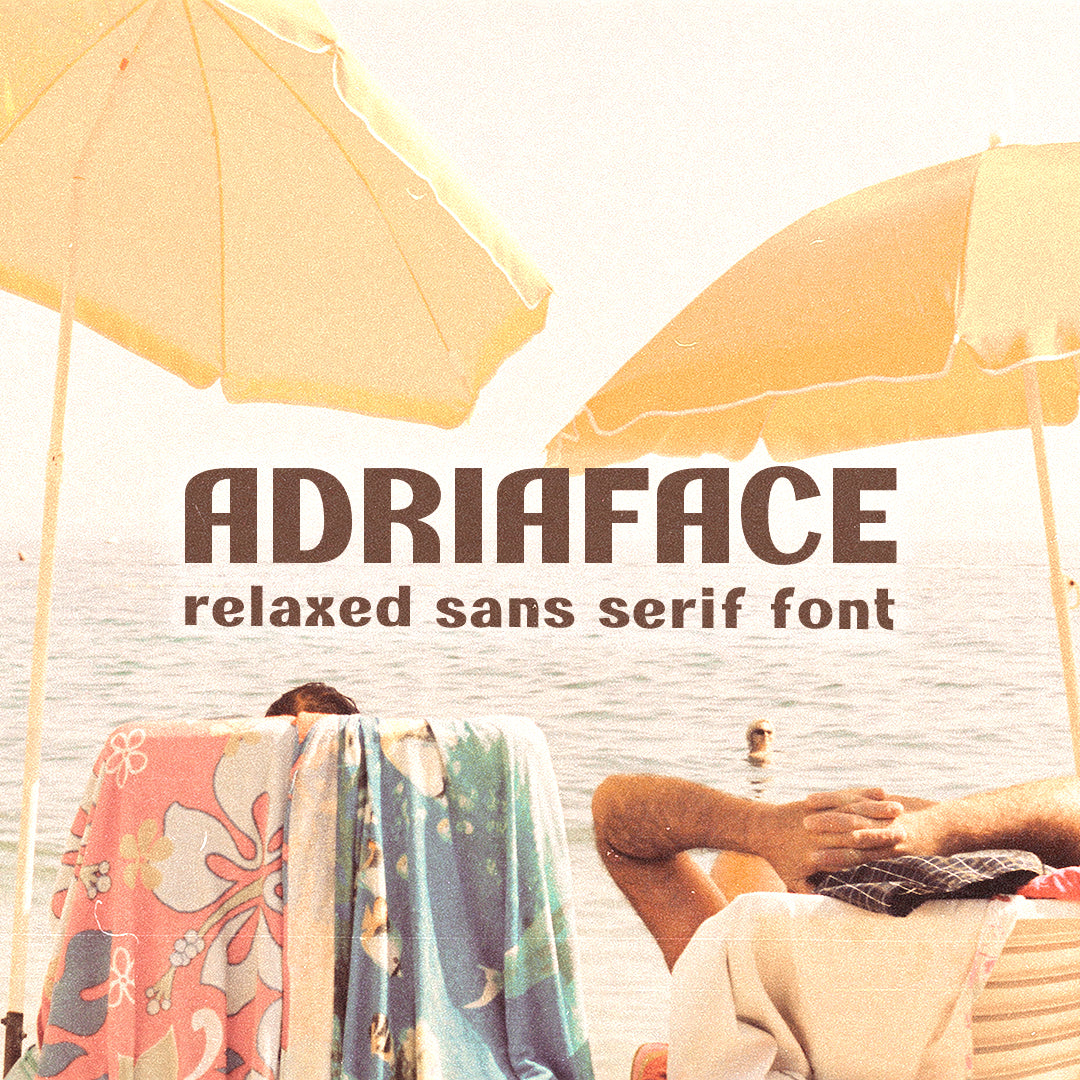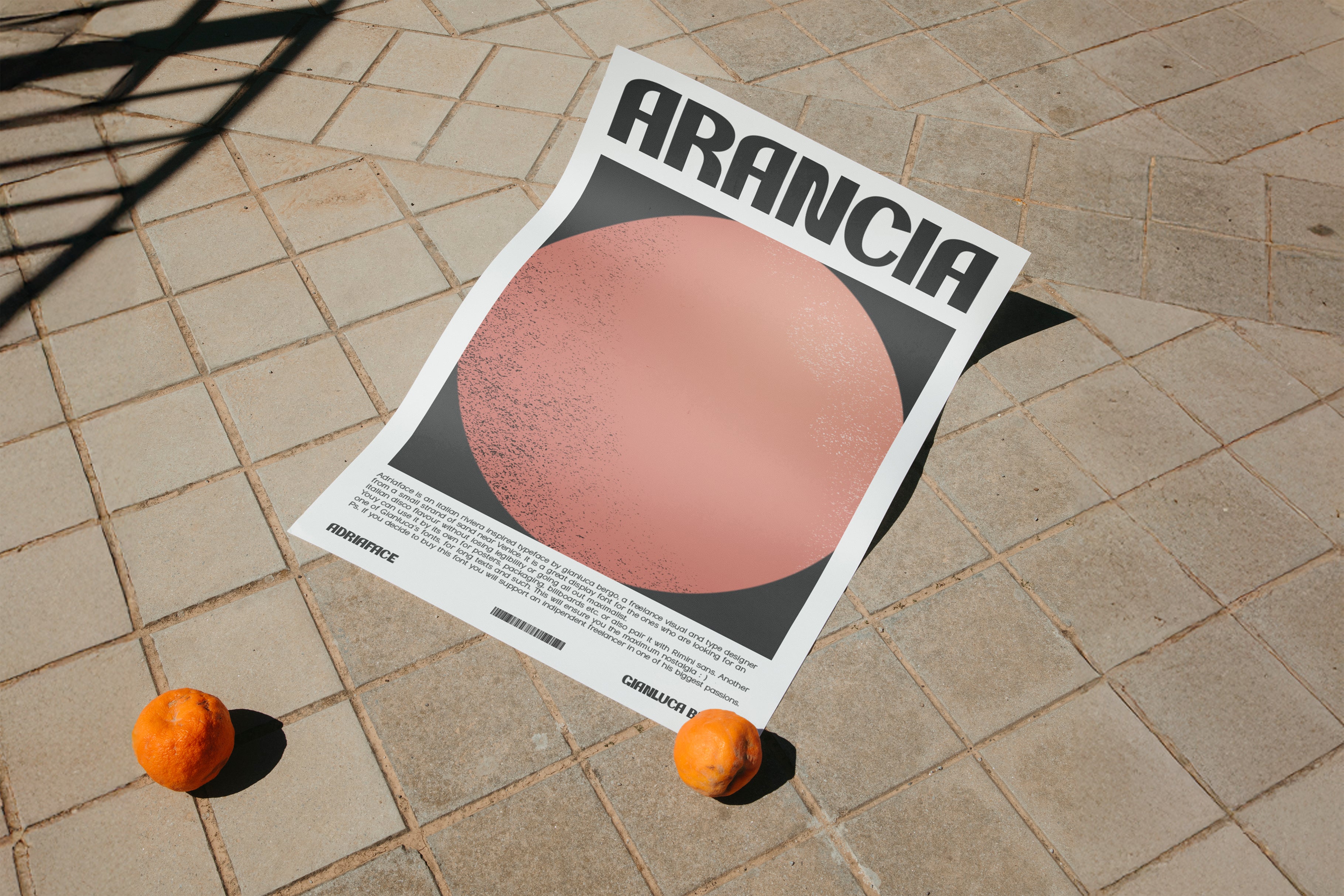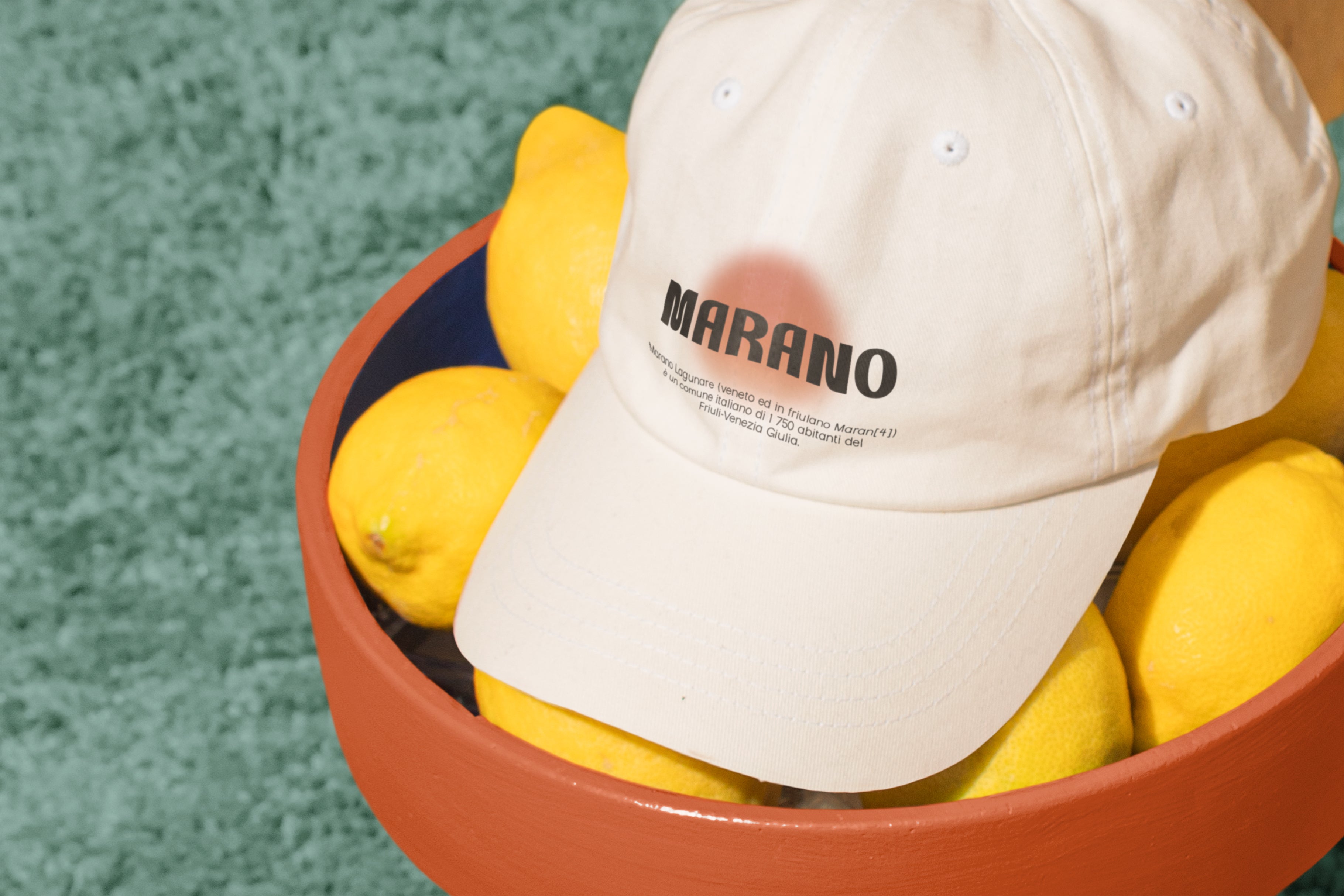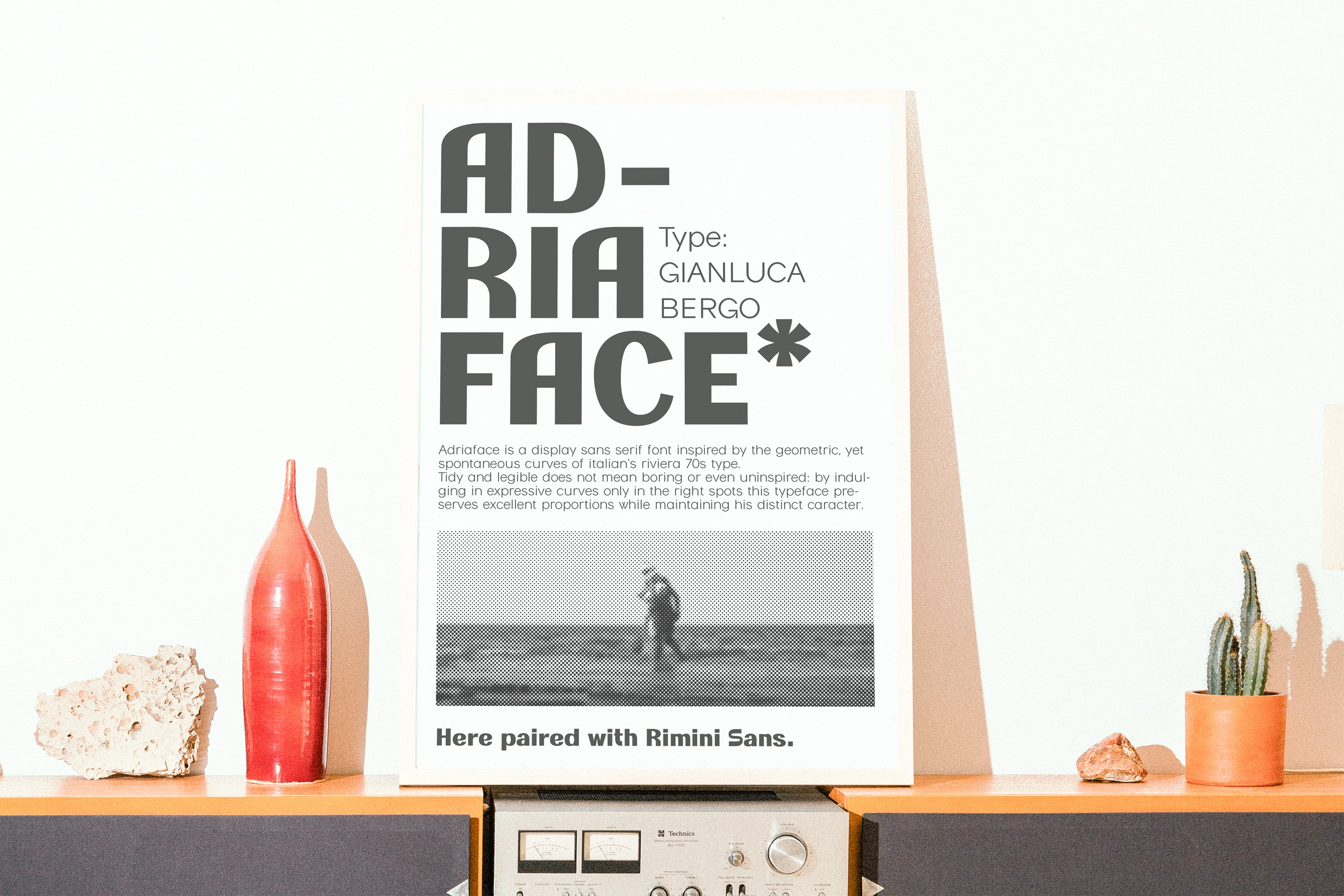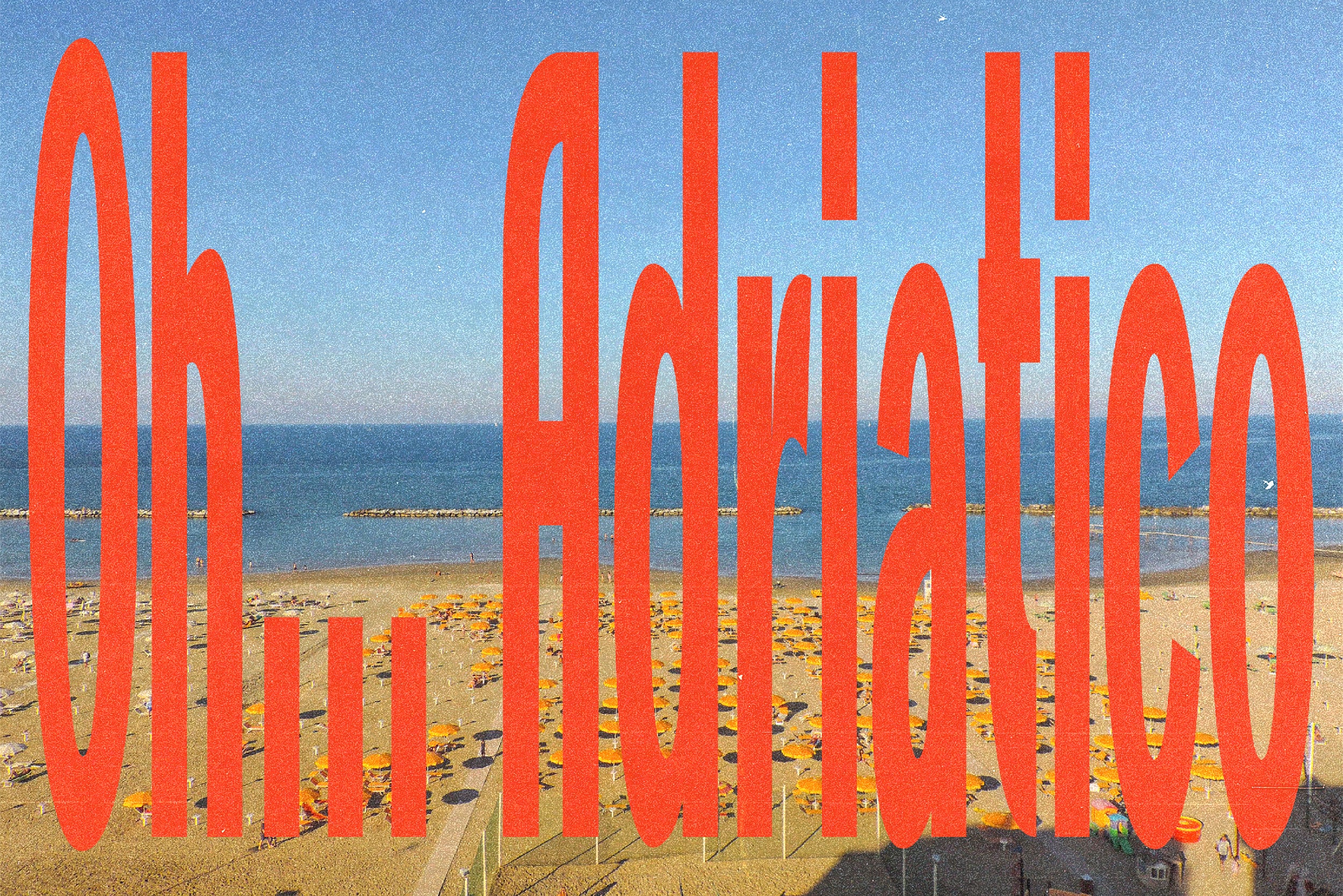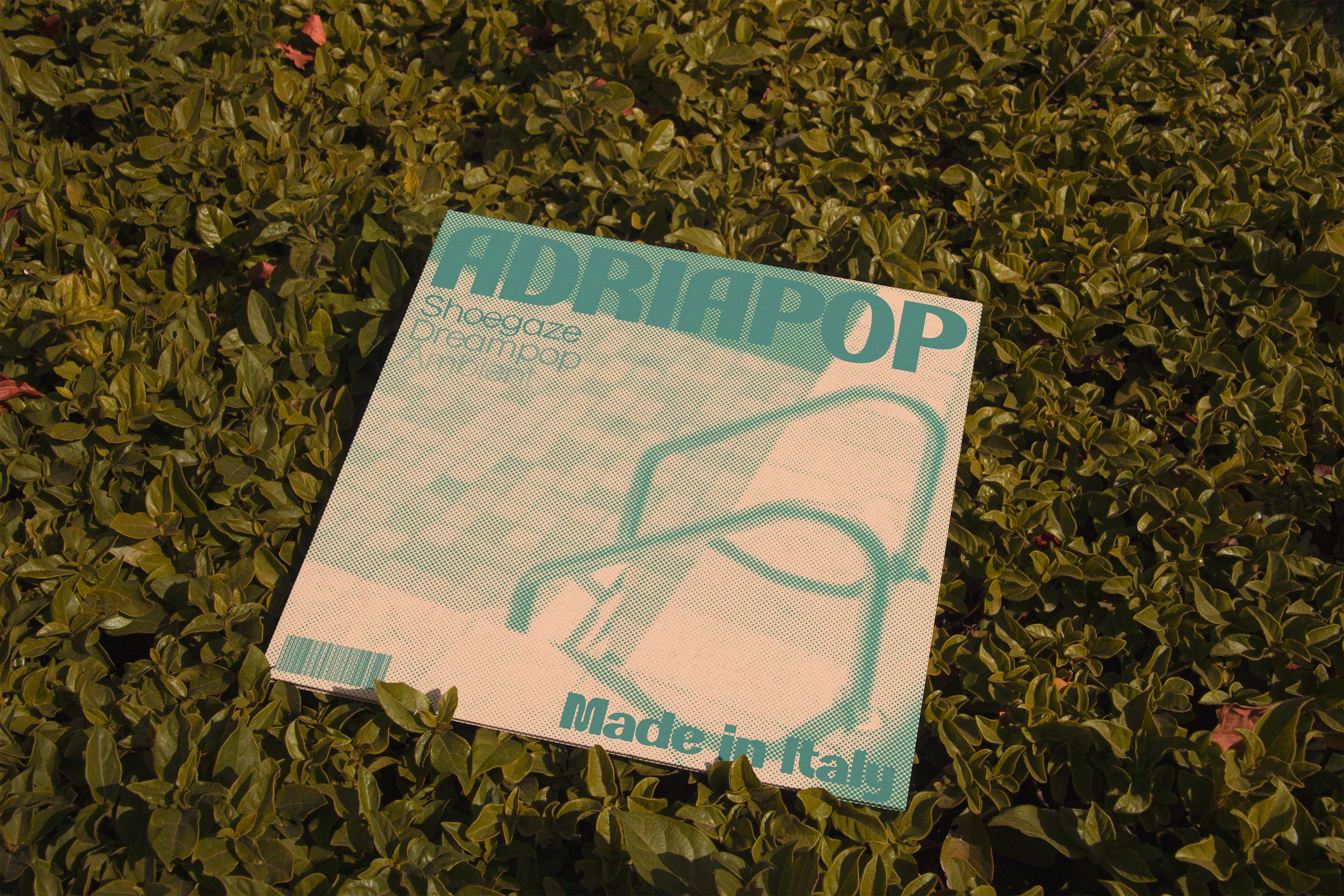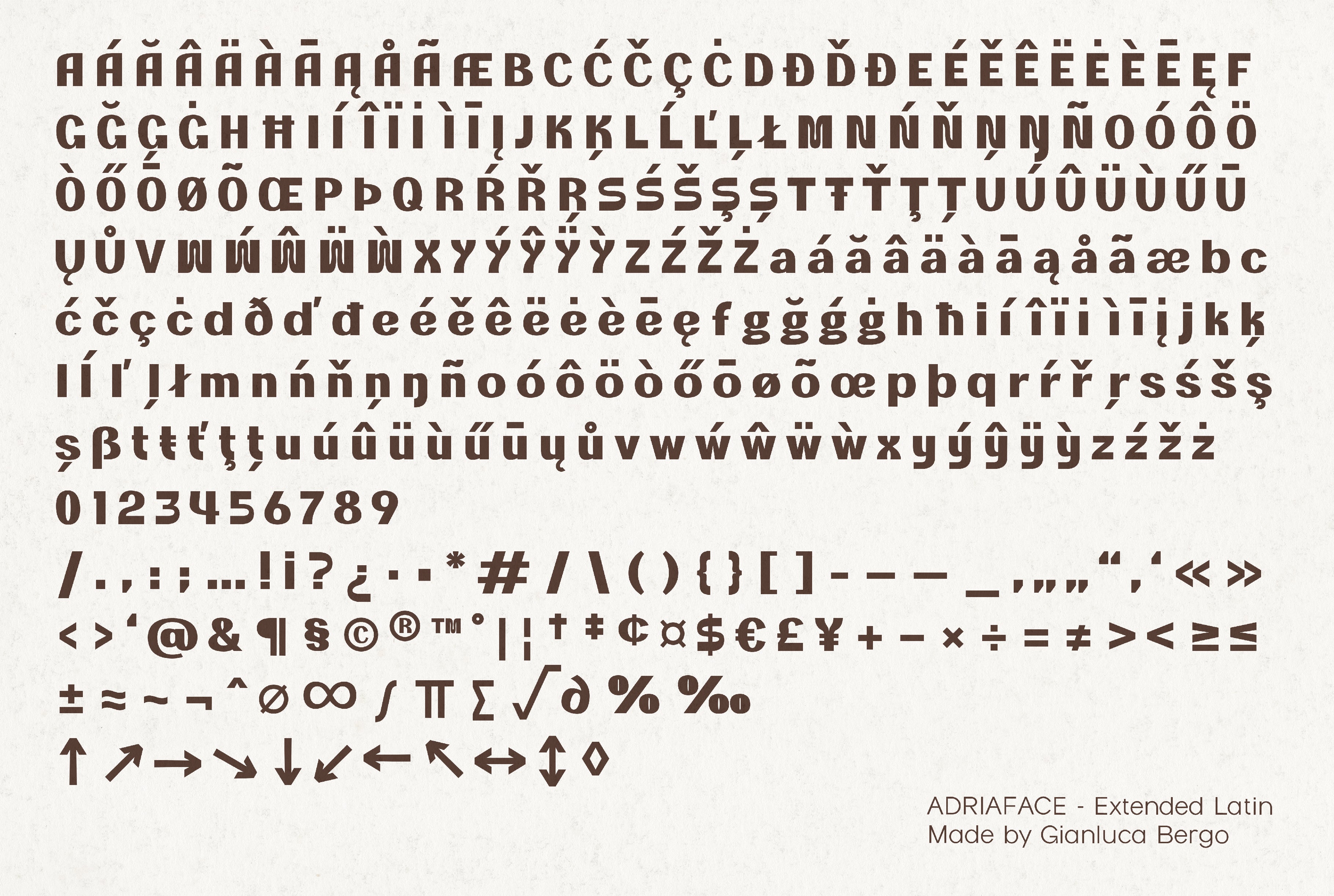
Adriaface - Italian riviera font
Adriaface is a geometric type family inspired by the Adriatic Riviera, designed for clarity and readability with an extended European alphabet suitable for various languages. It combines a warm spirit with polished aesthetics, making it versatile for diverse typographic needs.
Gianluca_Bergo